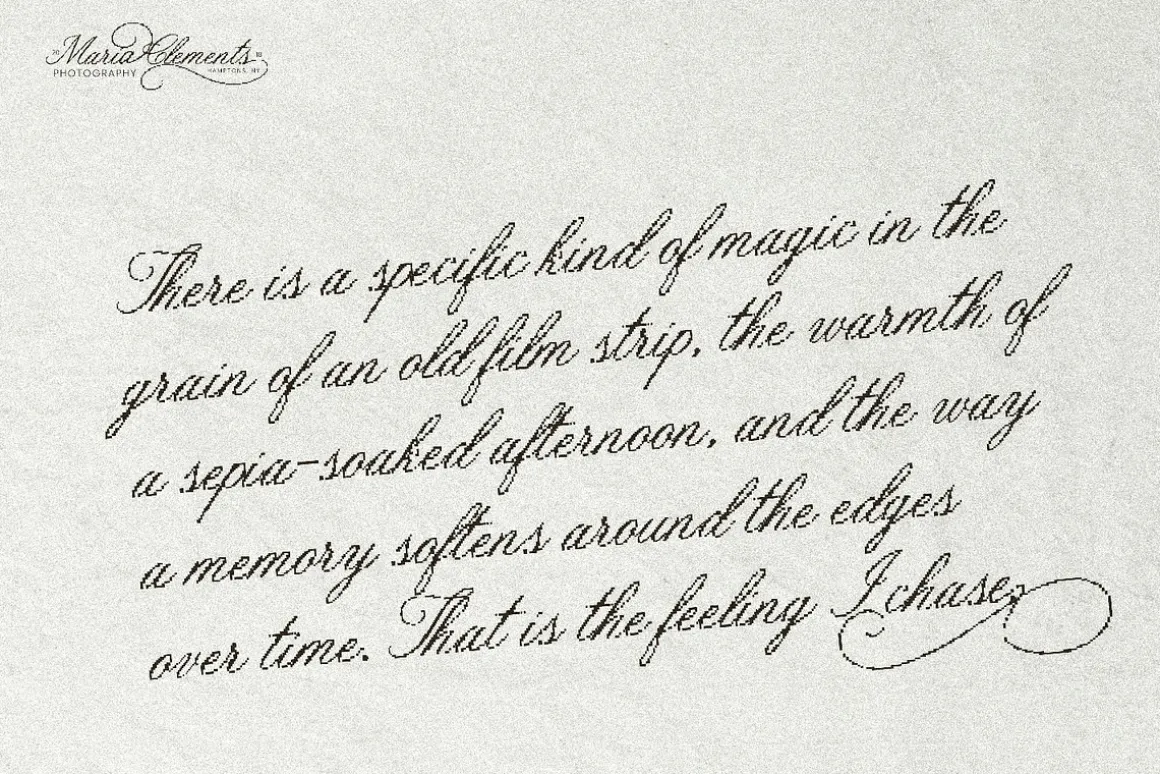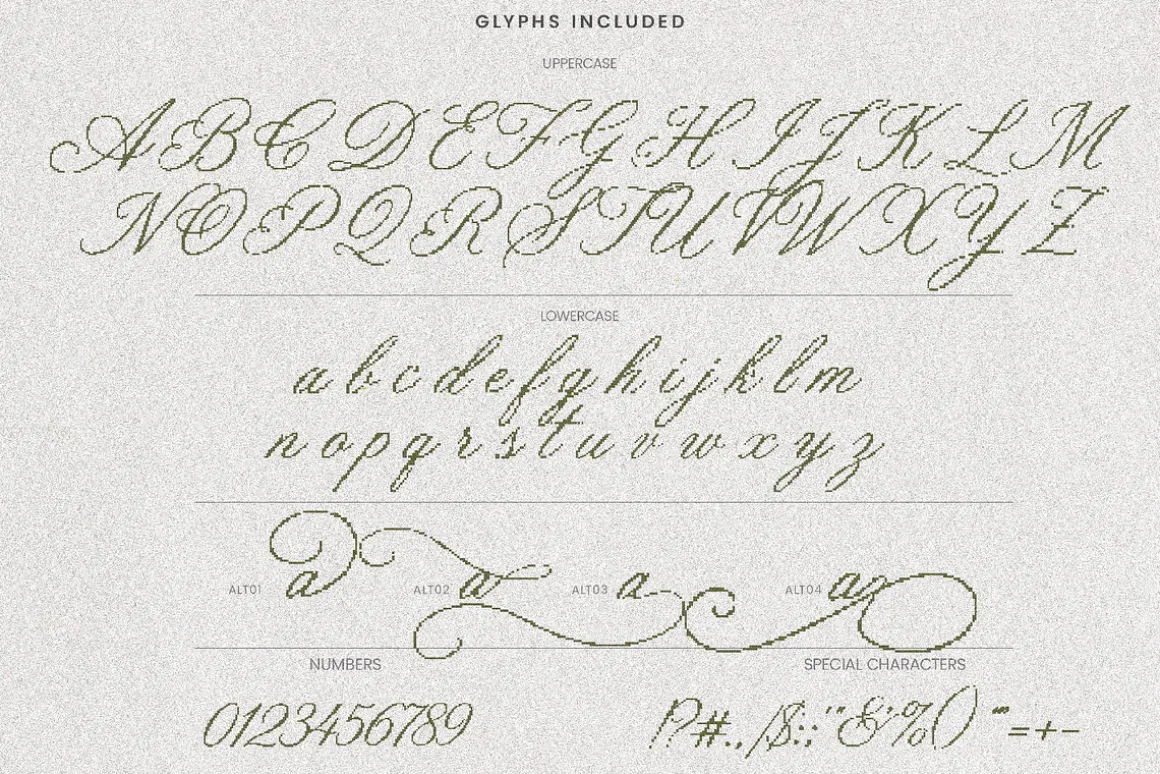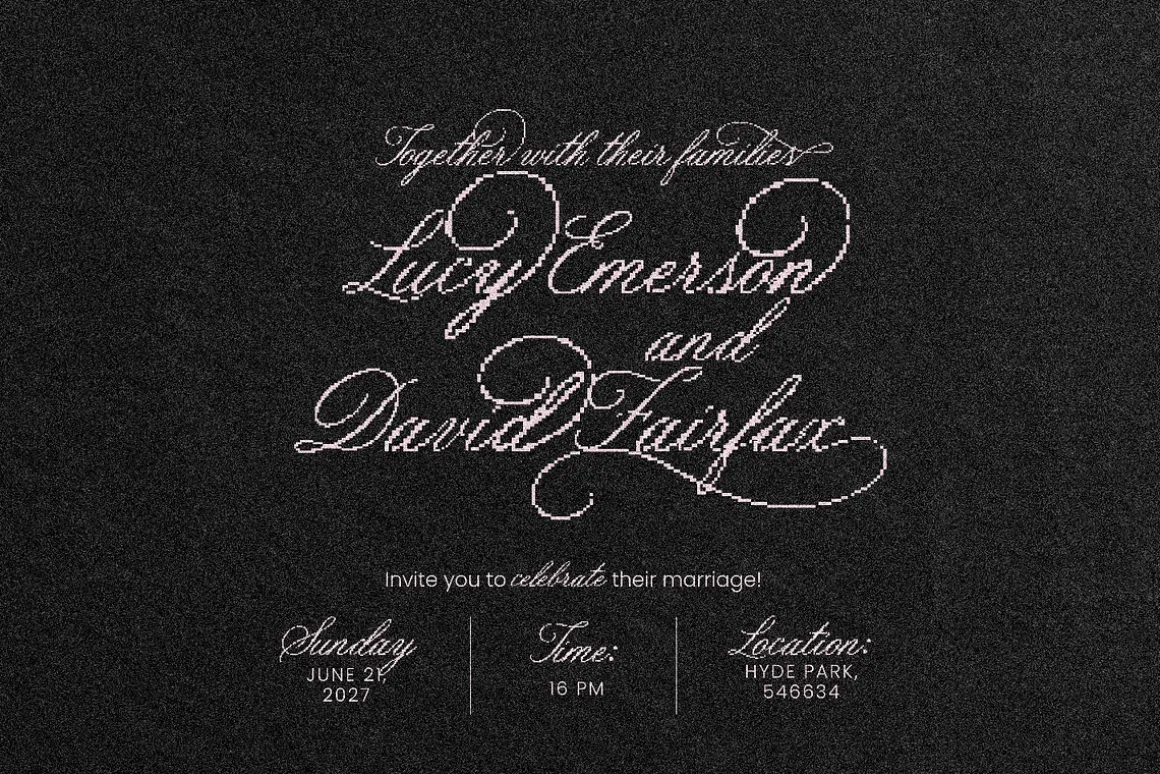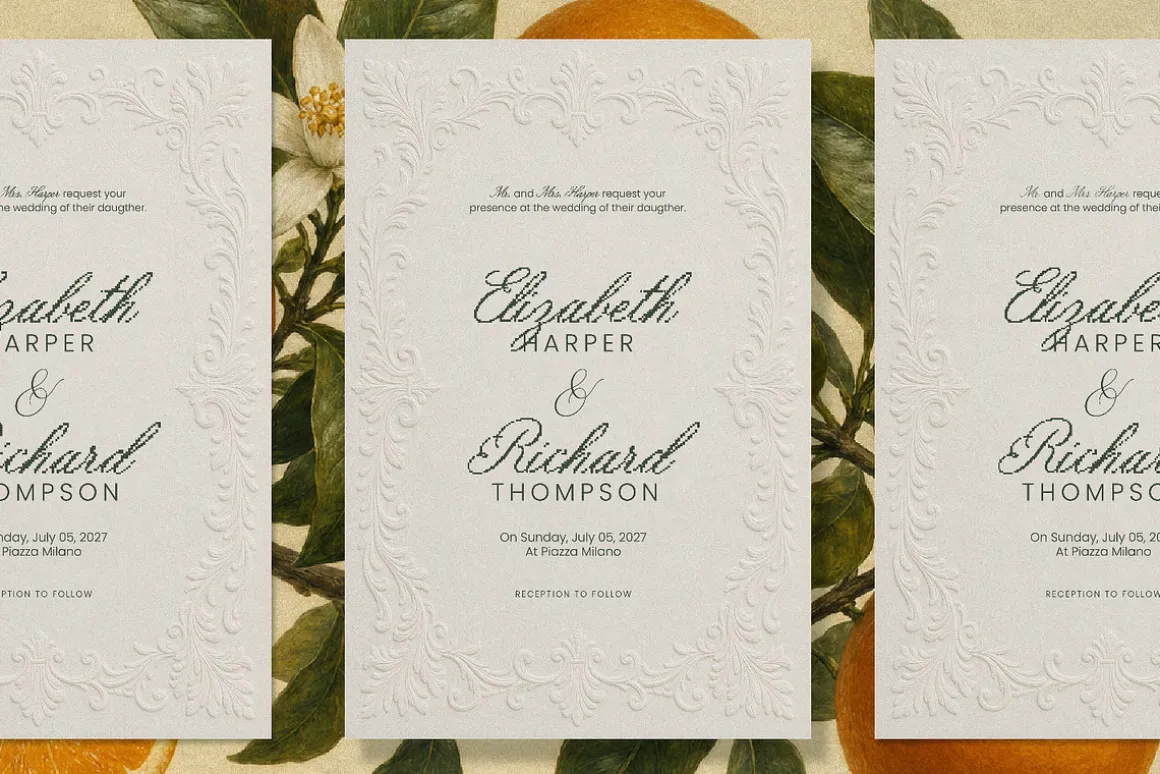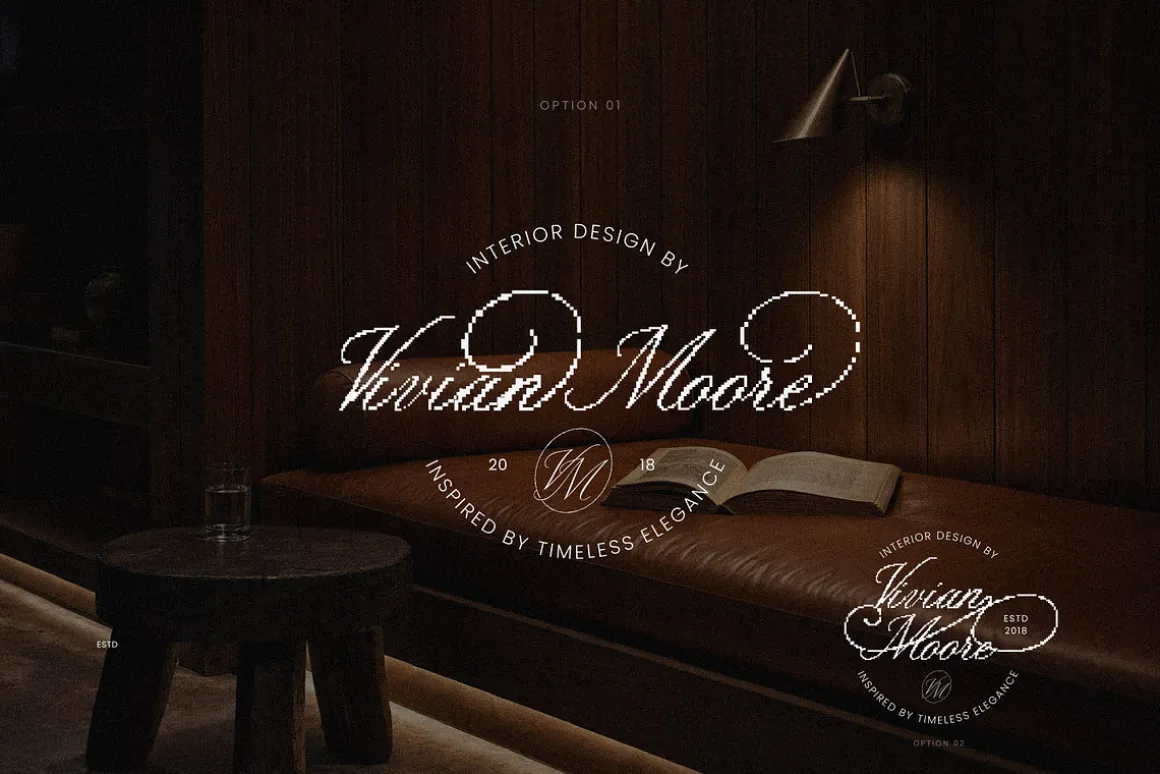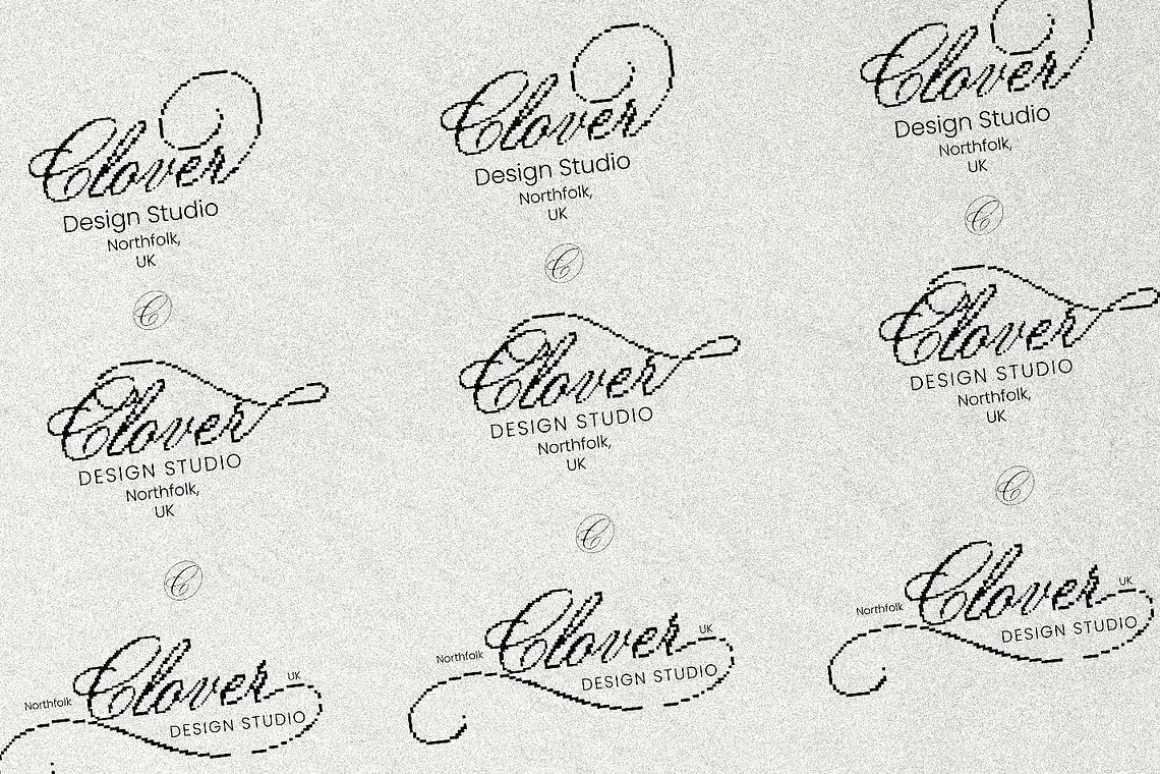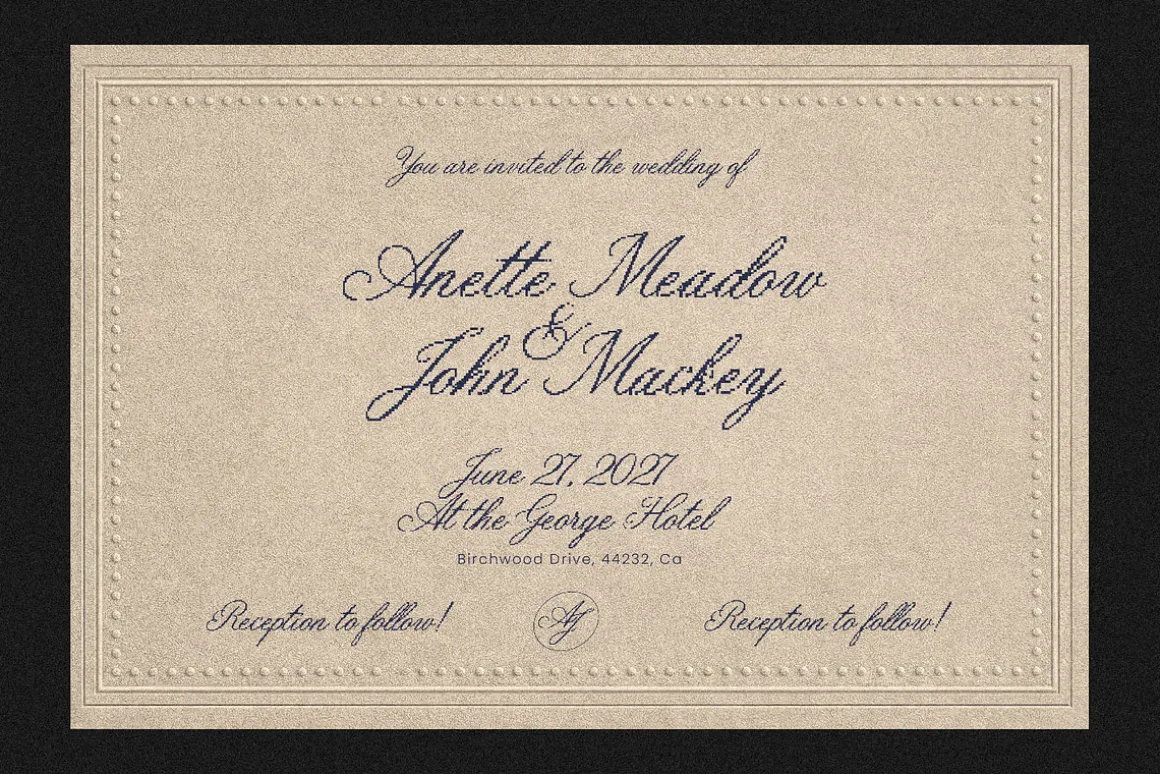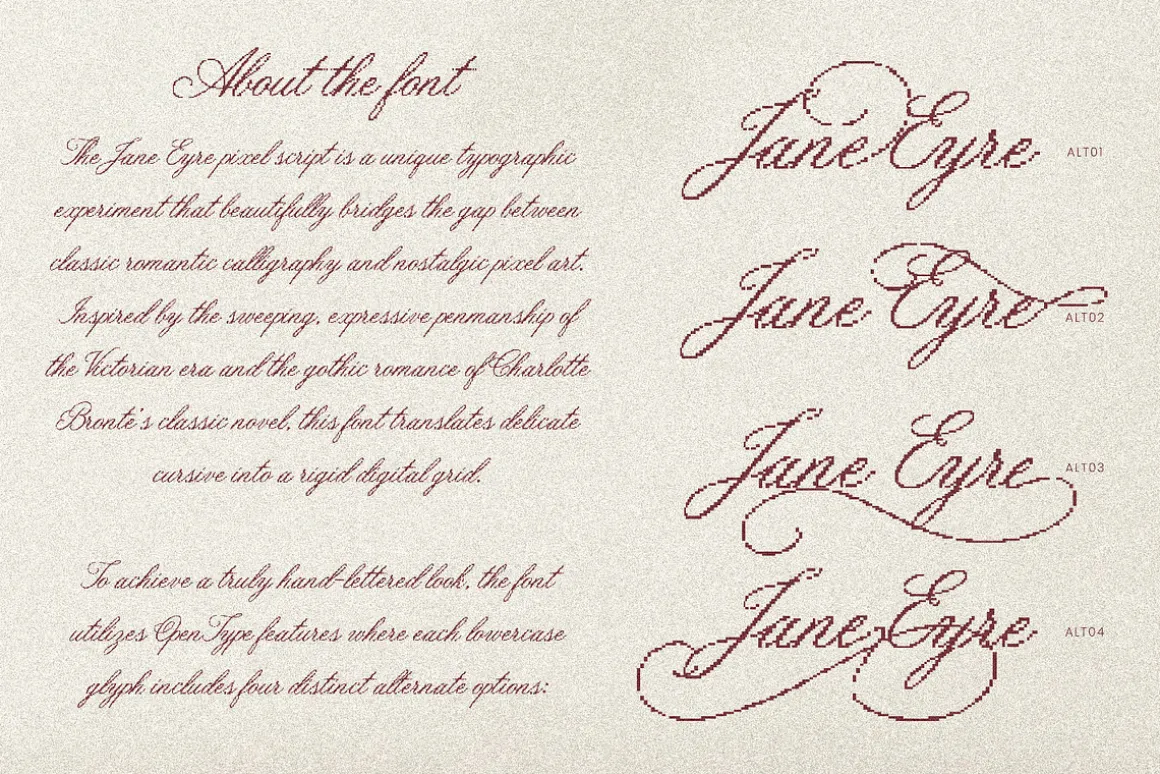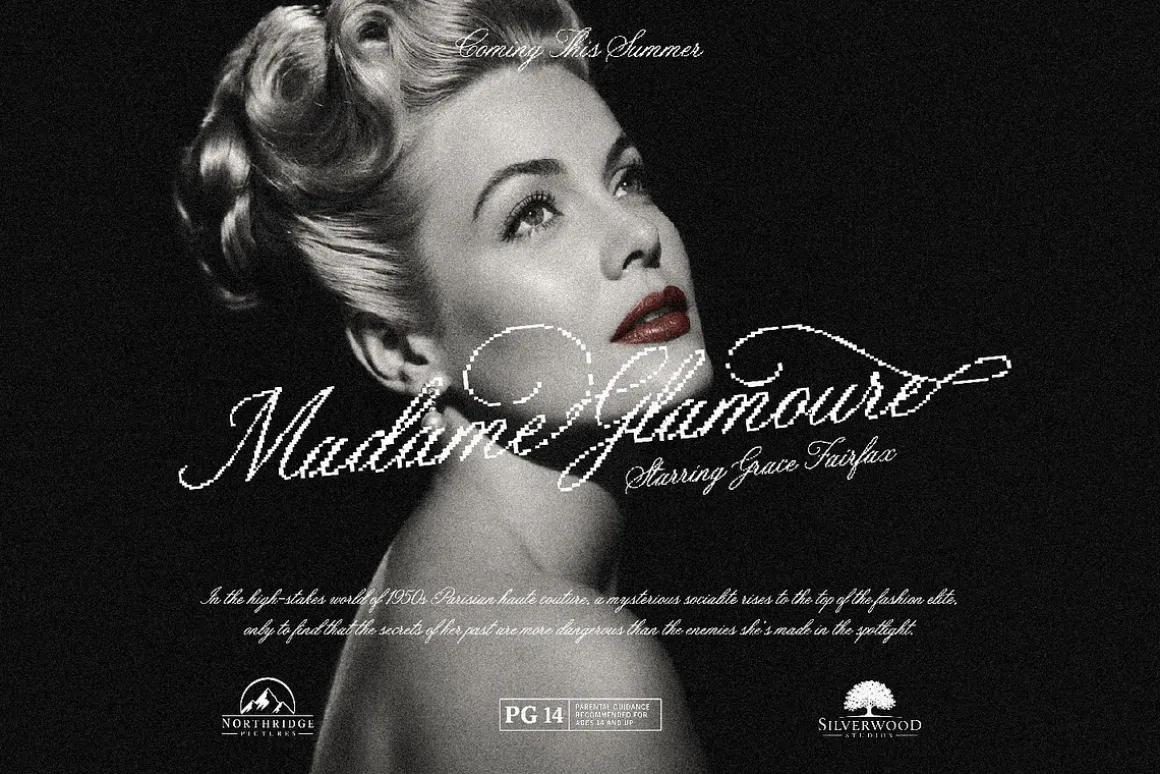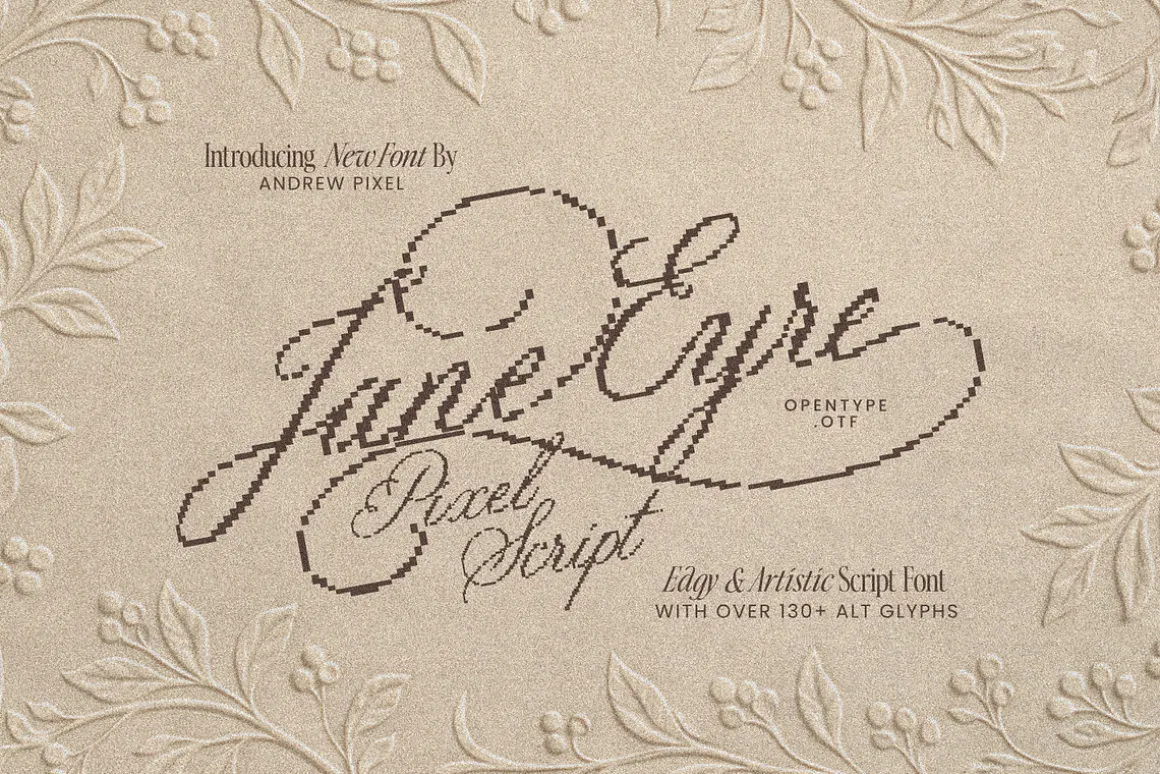
Jane Eyre Pixel Script is totally unique mashup where elegant vintage calligraphy meets retro 8-bit pixel art. If you’ve been looking for something that perfectly balances romantic cottagecore vibes with a digital Y2K aesthetic, this is it!
This edgy font takes the beautiful, sweeping curves of a classic script font and gives it a cool, low-fi digital twist. It’s perfect for designers, crafters, and creators who want their typography to stand out from the crowd. Plus, it comes packed with over 130+ alternate glyphs, so you can mix and match letters to create custom, hand-lettered looks for your projects.
Great Use Cases (Where this font really shines!):
Indie Video Games & Twitch: Perfect for visual novel titles, cozy RPG game menus, or aesthetic streamer overlays.
Alternative Wedding Invitations: For the nerdy-but-chic couple wanting a blend of classic romance and retro gaming vibes.
Streetwear & Apparel: Looks amazing printed on oversized tees, hoodies, or tote bags for that trendy Y2K/cyber aesthetic.
Book Covers & Zines: Especially great for modern romance, litRPG, or edgy poetry collections.
Social Media Graphics: Grab attention on TikTok, Instagram, or Pinterest with quotes and graphics that have a nostalgic, digital feel.
Branding & Logos: Create a memorable, artistic logo for your small business, Etsy shop, or creative portfolio.
130+ Alternate Glyphs for ultimate customization